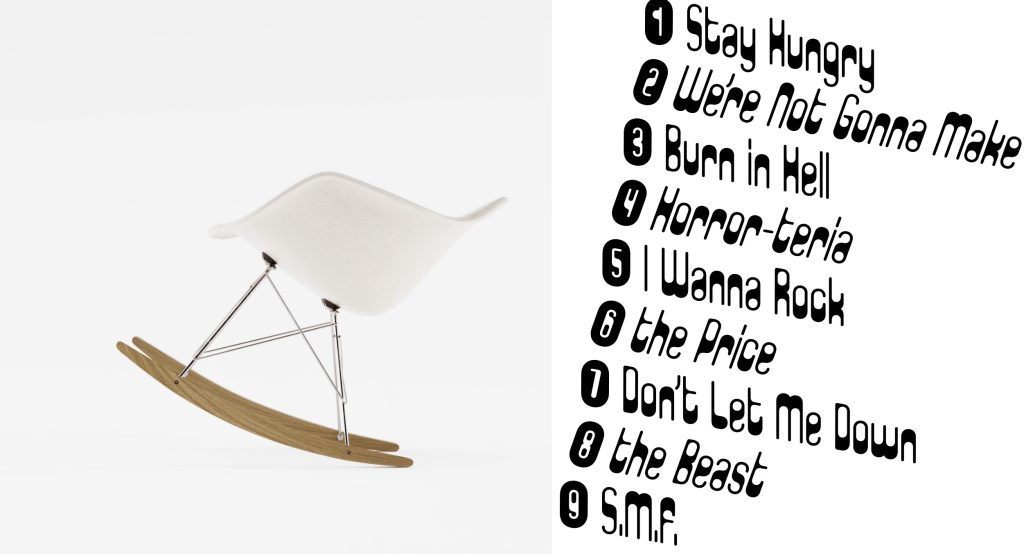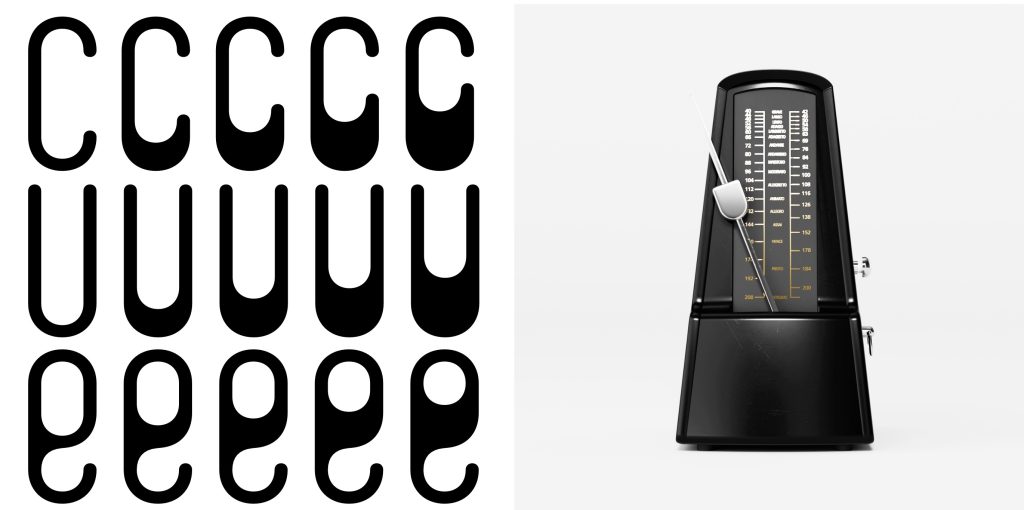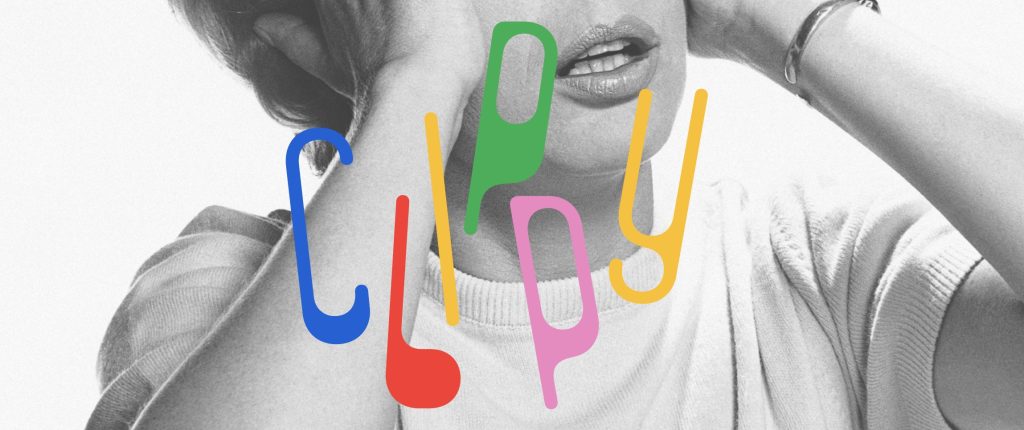
This Weird 1973 Typeface Just Came Back From the Dead
Some typefaces age gracefully. Others disappear for half a century and come back looking strangely perfect for the internet.
Clippy definitely belongs in the second category.
The wonderfully odd typeface from Kanon Foundry is based on Paperclip Contour, a 1973 design by Ad Werner. Type designer Tor Weibull took its rounded, looping letterforms and transformed them into a full digital type family — and somehow, more than 50 years later, it doesn’t feel particularly old.
The original Paperclip Contour was pretty limited: lowercase letters, numbers and basic punctuation, all in an outlined style. Clippy fills in those shapes, adds uppercase letters and expands the family to 530 glyphs and 219 supported languages.
But the fun part is what happens when it moves.
Clippy uses variable-font technology to shift between upright and slanted forms, allowing the letters to rock backwards and forwards rather than simply falling into a conventional italic.
It’s typography with a mild balance problem.
And perhaps that’s why it feels so timely. After years of extremely polite geometric sans serifs dominating digital design, weird typography is fun again.
Would we use Clippy for the body text of a banking app? Probably not.
Would we build an enormous homepage headline around it?
Absolutely.
More than 50 years after Paperclip Contour appeared, its wonderfully strange letters may finally have found the technology they were waiting for.